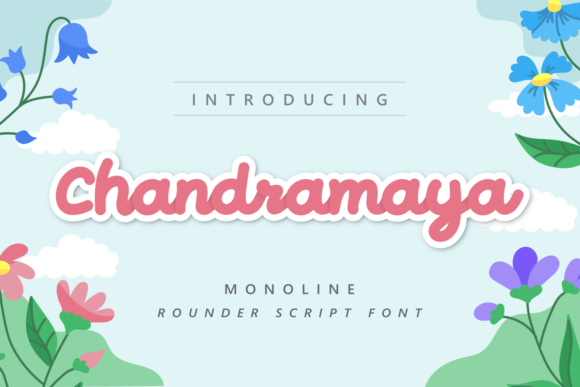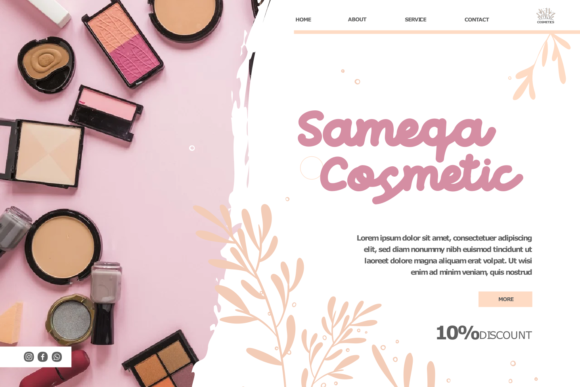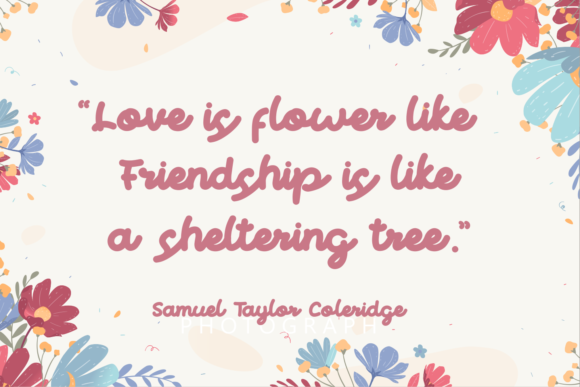
About Chandramaya Font
Chandramaya is a flowing handwritten font described by an elegant touch, perfect for your favorite projects. Fall in love with its incredibly distinct and timeless style and use it to create spectacular designs!